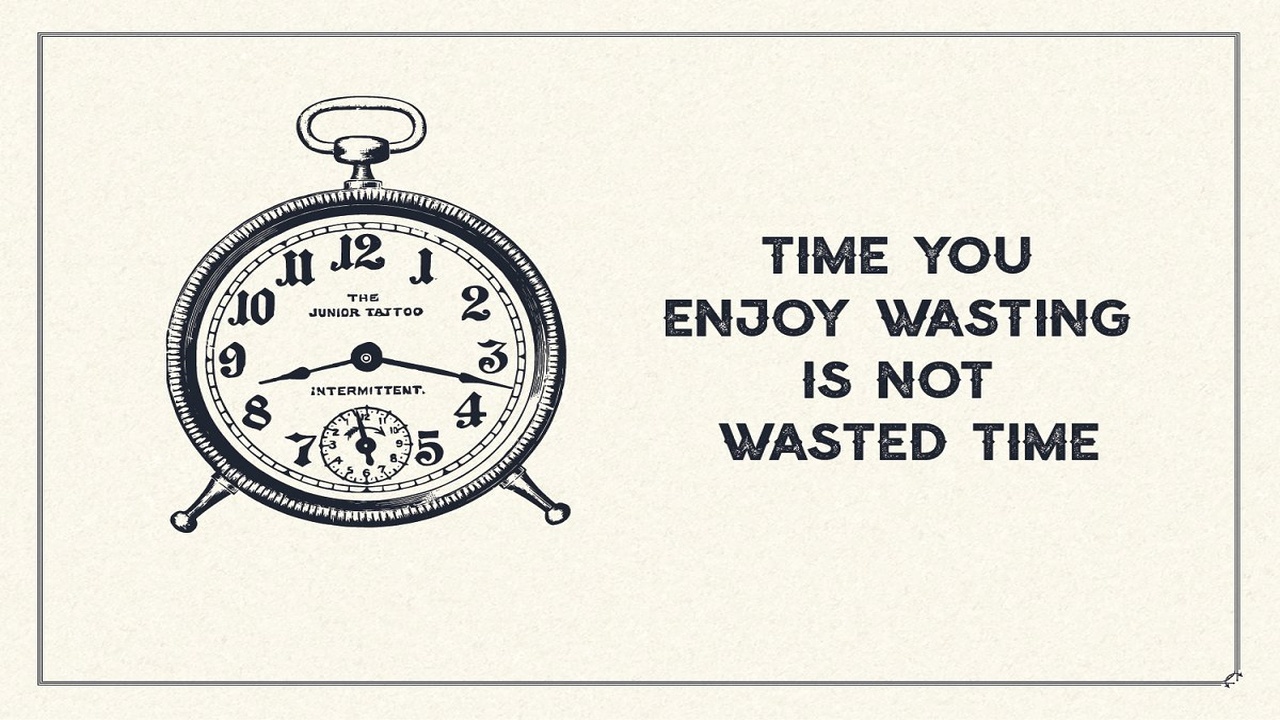
About the Nuevo Vintage Adventure Font
Nuevo – Vintage Adventure FontNuevo is a vintage display font including Regular and Textured versions, it’s perfect for logos, name card, magazine layouts, invitations, headers, or even large-scale artwork, Atjeh includes 4 OTF & TTF files within the Zip folder, FeaturesUppercaseLowercasePunctuation and NumberMultilingual LanguageThat’s it! Get cracking!! I hope you have as much fun using it as I did making it :)If you are still unsure, feel free to drop me a line, I’ll try to get to you as soon as possible 🙂 Now go ahead and Get designing already!